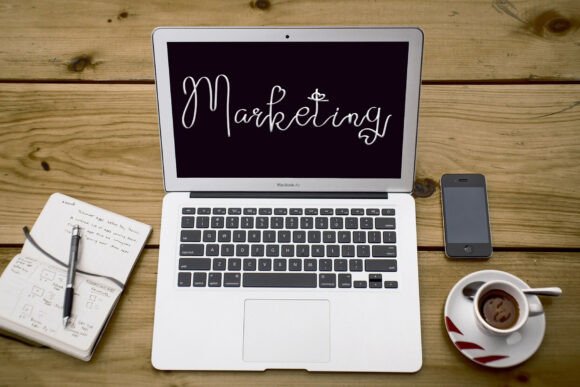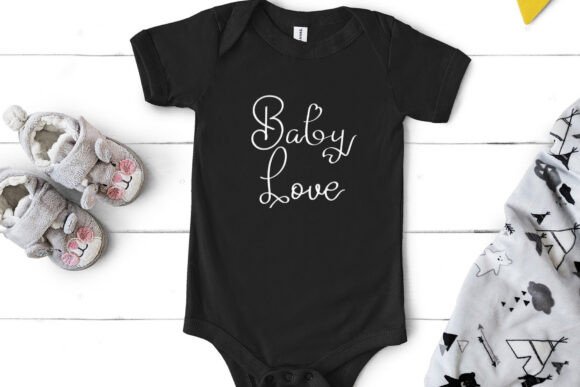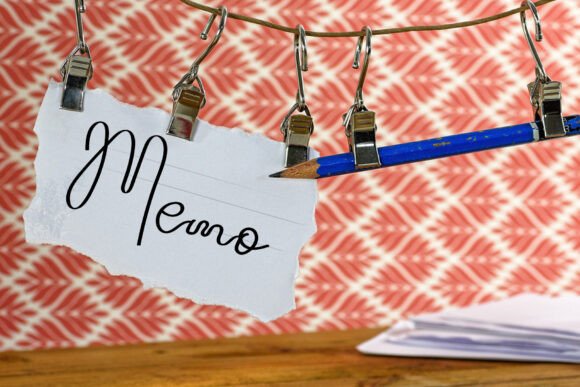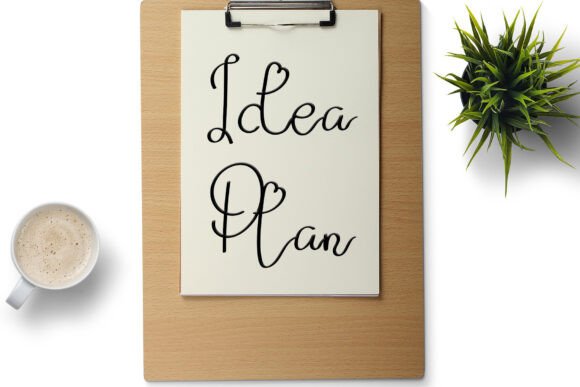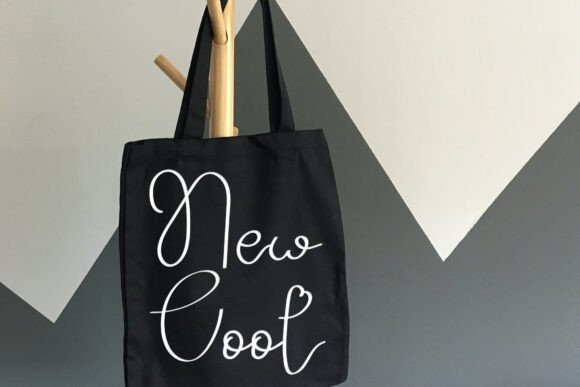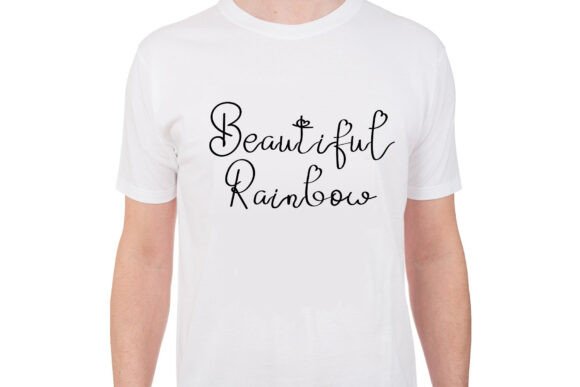
Fellowship Font: Elevate Your Designs with Elegance and Sophistication
In the world of typography, few fonts manage to capture the essence of elegance and sophistication as effortlessly as the Fellowship Font. This unique and exquisite typeface is designed to bring a touch of handwritten charm to a wide range of design projects, from wedding invitations and greeting cards to billboards, logos, and business cards. With its varied baseline and natural, hand-made touch, Fellowship Font is the perfect choice for designers and crafters looking to add a personal and bespoke feel to their creations.
The Characteristics of Fellowship Font
So, what sets Fellowship Font apart from other typefaces? Here are a few key characteristics that make it a standout choice for designers:
- Unique and Elegant Design: Fellowship Font boasts a distinctive and refined design that exudes sophistication and luxury. Its elegant lines and curves make it perfect for high-end designs that require a touch of class.
- Varied Baseline: Unlike traditional fonts with uniform baselines, Fellowship Font features a varied baseline that mimics the natural, hand-made touch of handwritten text. This unique feature adds a level of authenticity and personality to your designs.
- PUA Encoded: Fellowship Font is PUA (Private Use Area) encoded, which means that you can access all glyphs and swashes with ease. This feature allows you to unlock the full creative potential of the font and experiment with different styles and combinations.
Uses of Fellowship Font
Fellowship Font is an incredibly versatile typeface that can be used in a wide range of design projects, including:
- Wedding Invitations: Add a touch of romance and elegance to your wedding invitations with Fellowship Font. Its sophisticated design and handwritten charm make it perfect for formal and informal wedding stationery.
- Greeting Cards: Whether you’re designing birthday cards, Christmas cards, or thank-you cards, Fellowship Font is a great choice. Its unique and elegant design will make your cards stand out from the crowd.
- Billboards and Posters: Fellowship Font is not just limited to small-scale designs. Its bold and eye-catching design makes it perfect for billboards, posters, and other large-format prints.
- Logos and Branding: Establish your brand identity with Fellowship Font. Its unique and memorable design will help you create a lasting impression on your customers and set your brand apart from the competition.
- Business Cards: Make a statement with your business cards using Fellowship Font. Its elegant design and handwritten charm will help you create a professional and sophisticated impression.
Tips for Using Fellowship Font
To get the most out of Fellowship Font, here are a few tips to keep in mind:
- Experiment with Different Sizes: Fellowship Font looks great in a variety of sizes, from small and delicate to large and bold. Experiment with different sizes to find the perfect fit for your design.
- Play with Glyphs and Swashes: Take advantage of Fellowship Font’s PUA encoding and experiment with different glyphs and swashes. This will help you add a unique touch to your designs and make them more visually interesting.
- Combine with Other Fonts: Fellowship Font pairs well with a range of other fonts, from serif and sans-serif typefaces to script fonts. Experiment with different combinations to find the perfect match for your design.
In conclusion, Fellowship Font is a unique and elegant typeface that offers a world of creative possibilities for designers and crafters. With its varied baseline, natural hand-made touch, and PUA encoding, it’s the perfect choice for adding a personal and bespoke feel to your designs. Whether you’re working on wedding invitations, greeting cards, billboards, logos, or business cards, Fellowship Font is sure to elevate your designs and make them stand out from the crowd.